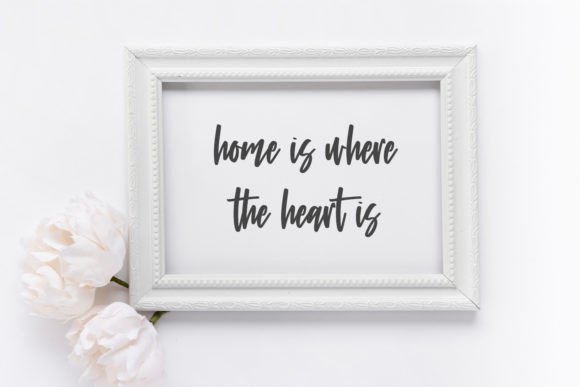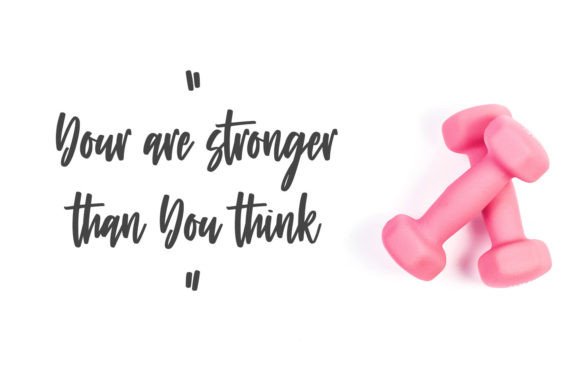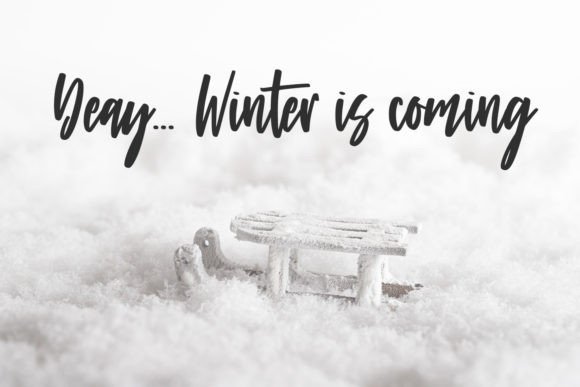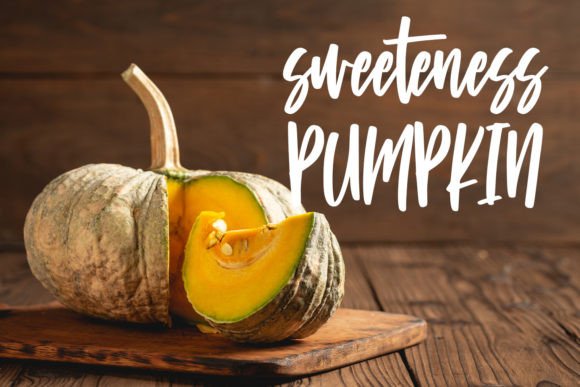
A Timeless Touch of Handwriting Charm
You’ve probably had one of those moments where you’re rummaging through your grandmother’s attic, and you stumble upon an old handwritten letter or a vintage postcard. The imperfections in the handwriting, the way the words seem to dance on the page – it’s a reminder of the beauty in imperfection and the personal touch that handwritten fonts can bring.
That’s exactly what the Austrian Farmhouse Font captures – the essence of natural handwriting. This font is perfect for adding a touch of elegance and simplicity to your craft projects, from t-shirt designs to social media graphics. Its ligatures create a seamless flow that makes it look like it was written by hand.
For designers, the Austrian Farmhouse Font is a valuable addition to their toolkit. Its versatility and charm make it a great choice for projects that need a personal touch without being too elaborate. Whether you’re creating a quote, a banner, or a card, this font is sure to add a unique and timeless touch to your design.
Austrian Farmhouse Font Key Features
- Font Family: Austrian Farmhouse Font is a script font, ideal for creating a rustic or vintage look in designs.
- Character Count: The font family includes a wide range of characters, including uppercase and lowercase letters, numbers, and punctuation marks.
- Unique Characteristics: The font features a distinctive, hand-drawn feel with subtle irregularities, giving it a unique and authentic look.
Austrian Farmhouse Font Review
I recently had the chance to work with the Austrian Farmhouse Font, and I must say it’s a unique and charming addition to any design project. ✨ The font’s distressed texture and vintage feel immediately evoke a sense of rustic charm, making it perfect for farmhouse-themed designs or anything with a similar aesthetic.
Here are some of the font’s strengths:
- ✨ Wide range of characters, including punctuation and numbers
- ✨ Distressed texture adds depth and character to designs
- ✨ Perfect for creating a vintage or rustic look
- ⚠️ Limited language support, which may be a concern for international projects
- ⚠️ Some characters may not be as detailed or clear as others, which could impact readability
Overall, the Austrian Farmhouse Font is a great choice for projects that require a vintage or rustic look. While it may have some limitations, the font’s unique texture and charm make it a valuable addition to any designer’s toolkit.
To get the most out of Austrian Farmhouse Font, use it in conjunction with other rustic or vintage elements, such as distressed textures or old photographs. Experiment with different font sizes and styles to create visual interest.
Austrian Farmhouse Font is perfect for:
- Designing invitations for rustic weddings or outdoor events
- Creating labels for homemade products, such as jams or crafts
- Designing menus for farm-to-table restaurants or cafes